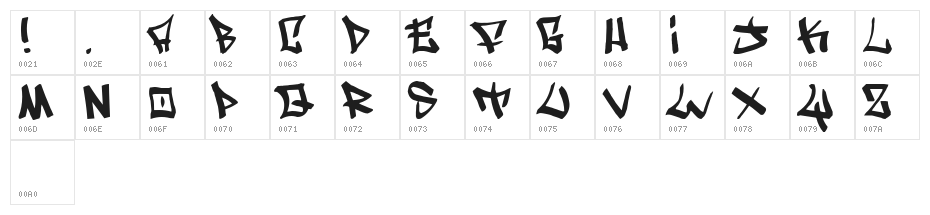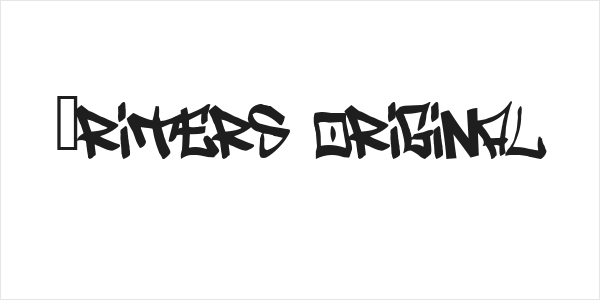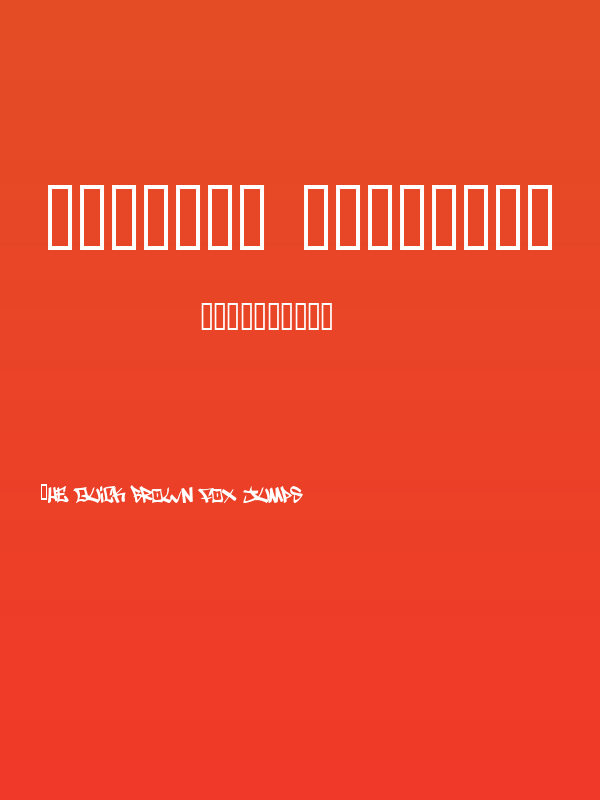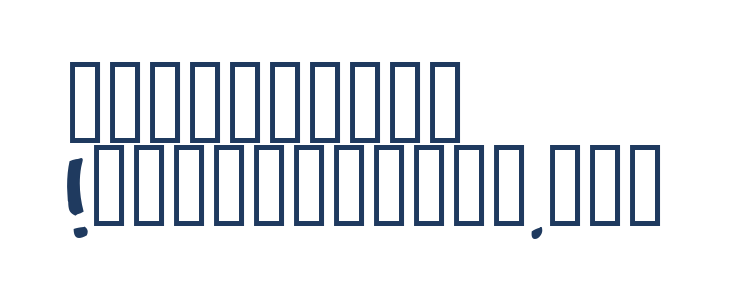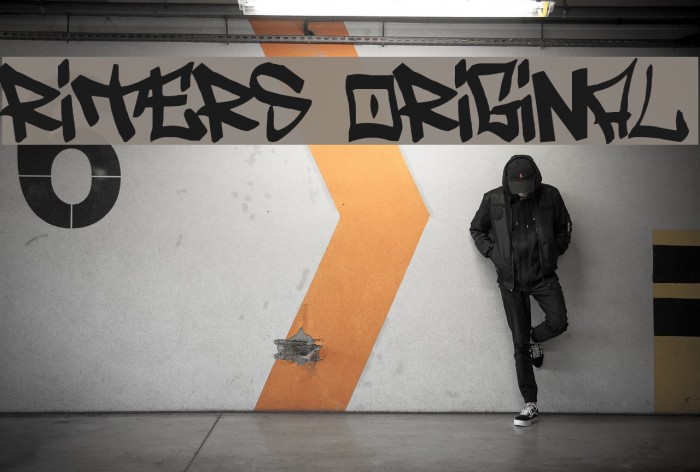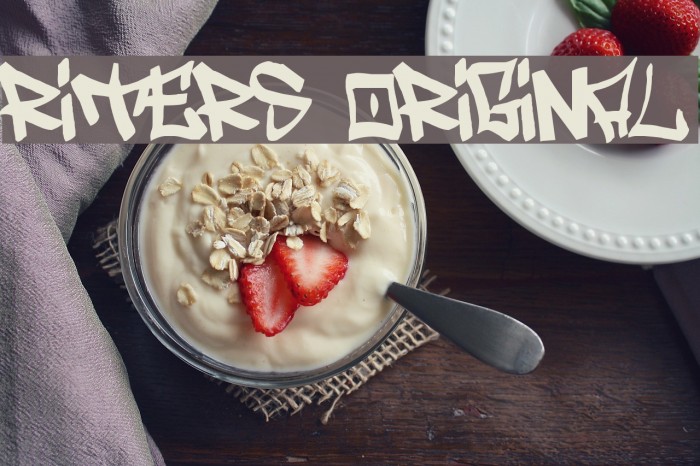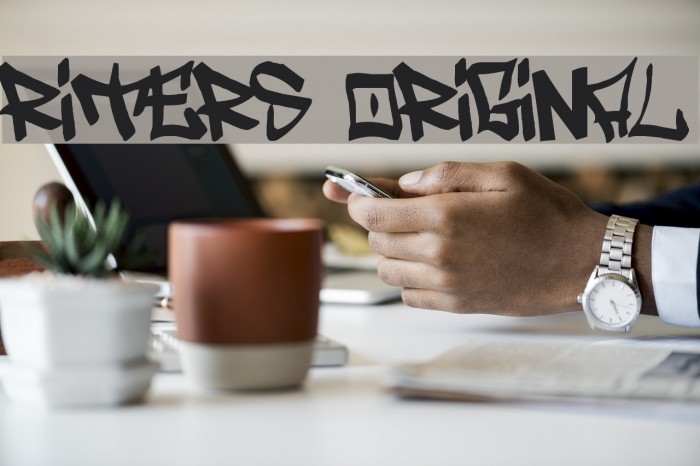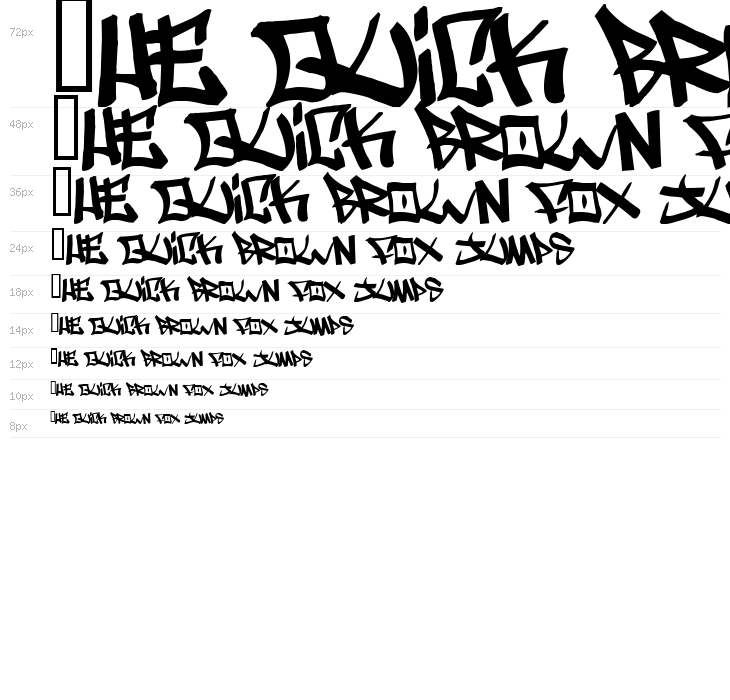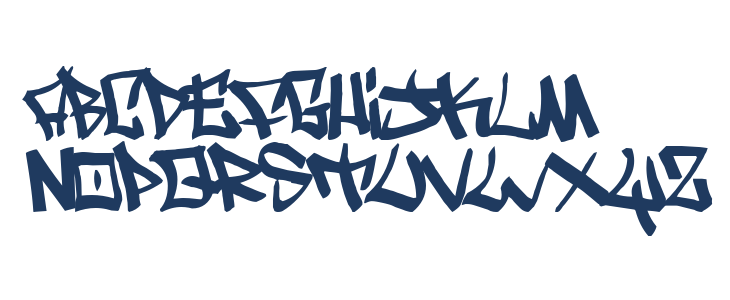
Writers original Font
Writers original Description
This font features a bold, graffiti-inspired style with sharp, angular lines and dynamic strokes. The uppercase letters are highly stylized, with exaggerated curves and edges that give a sense of movement and energy. The overall appearance is edgy and urban, reminiscent of street art and modern graffiti. The characters are tightly spaced, enhancing the compact and impactful look. This font is designed to stand out, making it ideal for projects that require a strong visual statement.
| Overall Style | Modern, Urban |
| Proposed Projects | Ideal for street art designs, urban-themed posters, music album covers, and edgy branding projects. |